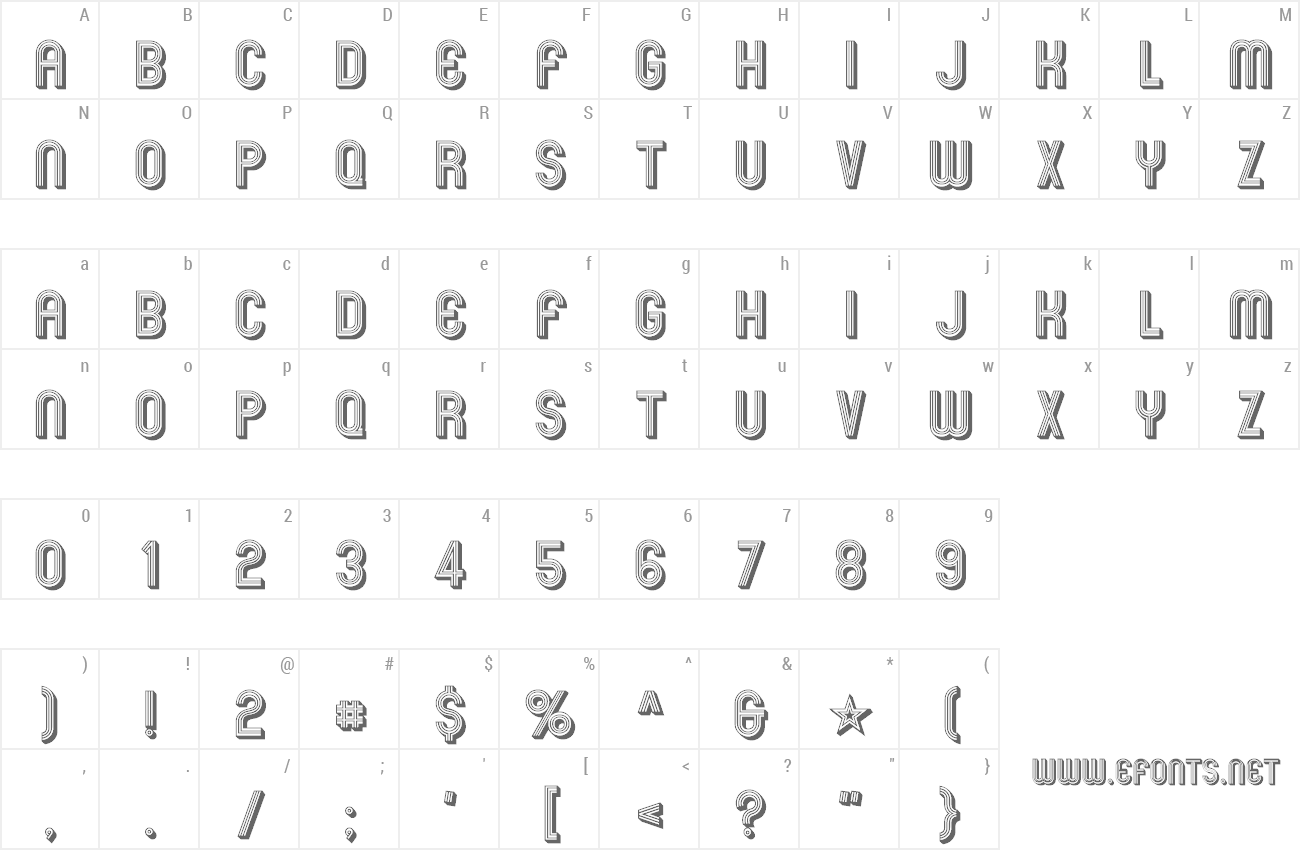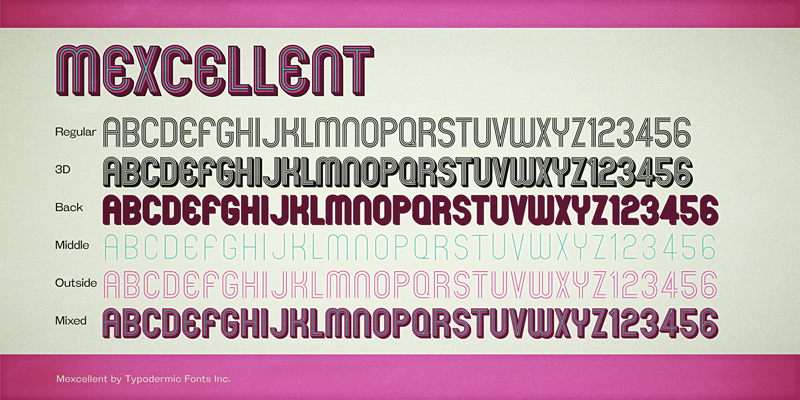
| Font name: | Mexcellent |
Mexcellent is a tri-linear stripe font. You can combine layers to create interesting color effects. Mexcellent Regular was designed with tighter spacing & vertical metrics than the other layers. If you want to stack layers on Mexcellent Back, use Mexcellent Middle and Mexcellent Outside instead. These fonts include a license that allows free commercial use: sometimes referred to as a desktop license. This allows you to install the fonts on a computer and use them to create posters, web graphics, game graphics, t-shirts, videos, signs, logos and more. Read the license agreement for details. If you'd like to embed these fonts in an app, ebook, on the web or anything that's not covered by the desktop license agreement, visit the link below. You'll find distributors who offer different types of licenses or you can contact me for help. http://typodermicfonts.com/mexcellence-in-broadcasting/ These free fonts are part of a larger font family. Check out the rest of the family through the link above. |